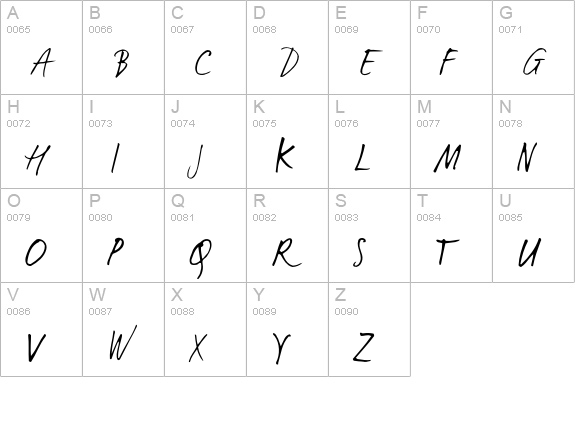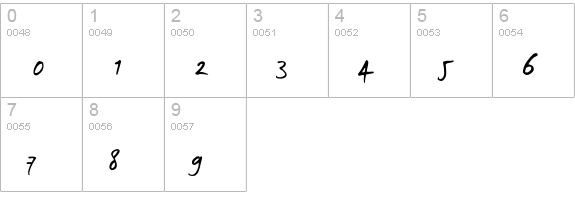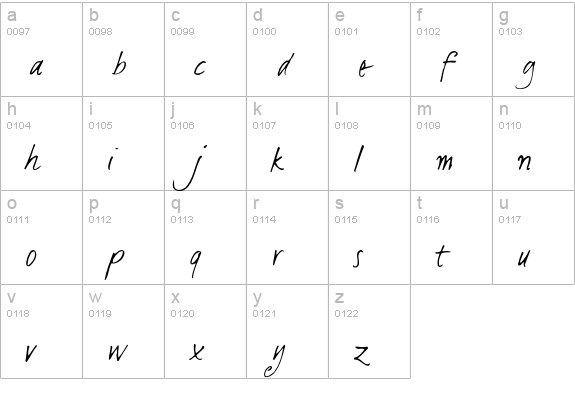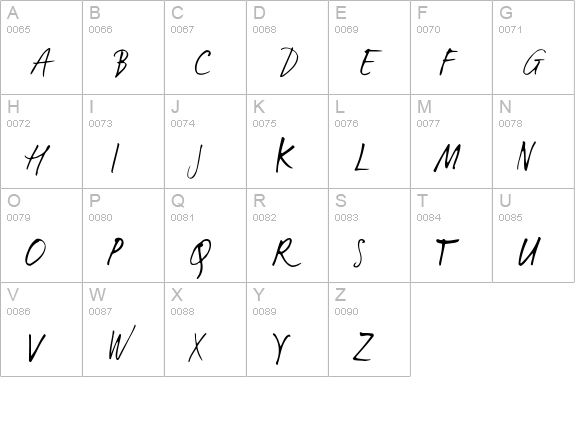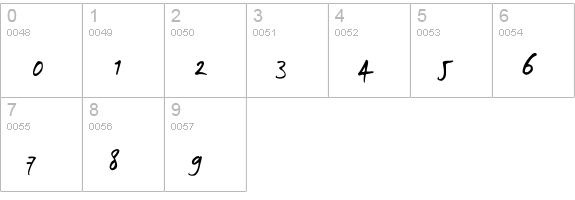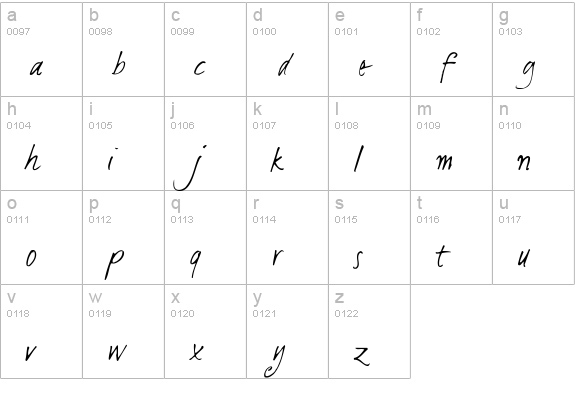
LucasHandFeetLight Font Details
LucasHandFeetLight font is a whimsical and playful typeface that exudes a sense of creativity and uniqueness. Its quirky hand-drawn style with a touch of sophistication makes it perfect for a variety of design projects, from branding to invitations to posters. The font features charming hand-drawn letterforms with a hint of whimsy, making it stand out in any design application. What sets LucasHandFeetLight font apart is its free-spirited nature and fun-loving vibe, making it a delightful choice for projects that need a touch of playfulness. Whether you're looking to add a friendly touch to your designs or want to convey a sense of creativity and originality, LucasHandFeetLight font is sure to make a statement. Best of all, LucasHandFeetLight font is freely available to download at FontsMarket.com, allowing you to easily incorporate this charming typeface into your projects without any hassle. Embrace the free-spirited charm of LucasHandFeetLight font and let your creativity shine with this delightful and unique typeface.